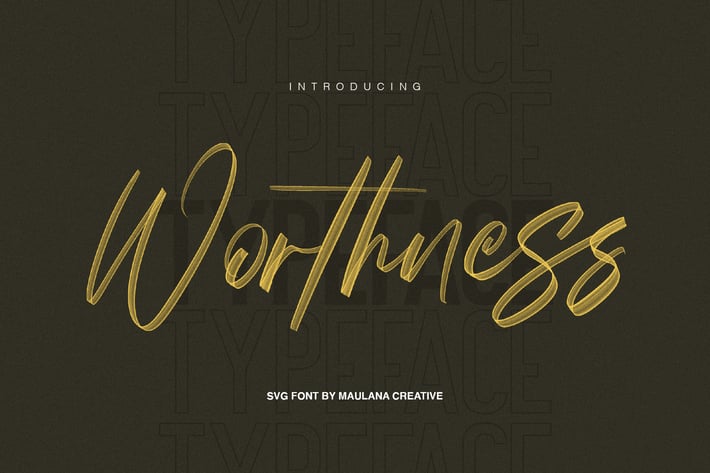
Worthness SVG Brush Font Free Sans
Give your designs an authentic brush handcrafted feel. "Worthness" is perfectly suited to signature, stationery, logo, typography quotes, magazine or book cover, website header, flyer, clothing, branding, packaging design and more.